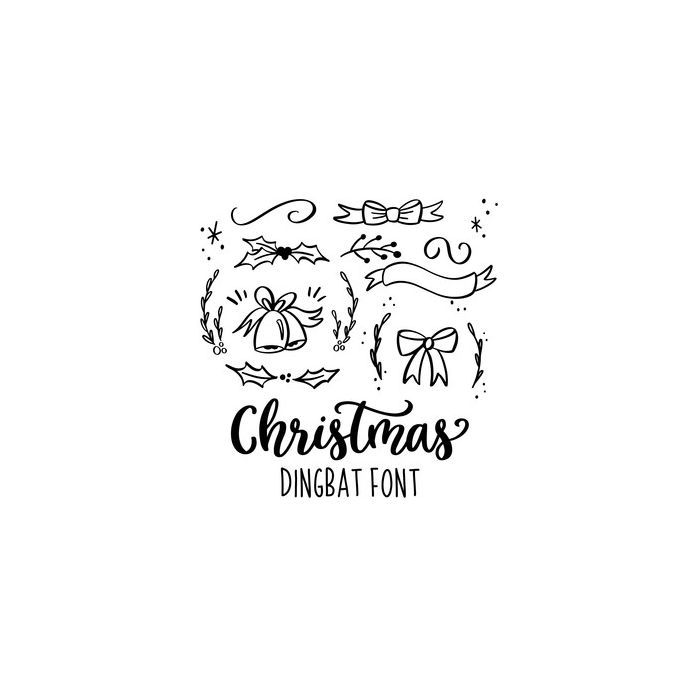
Christmas Dingbat including 36 shapes which you can type out using the characters a-z, 0-9. It includes Christmas shapes like bells, holly, flourishes, bows, banners & stars.